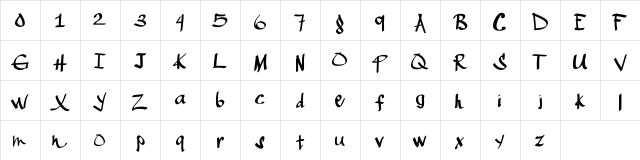
NinjaSushi Regular
Design Context for NinjaSushi Typeface
NinjaSushi is a composed and adaptable typeface that performs quietly and consistently across a wide range of design contexts.